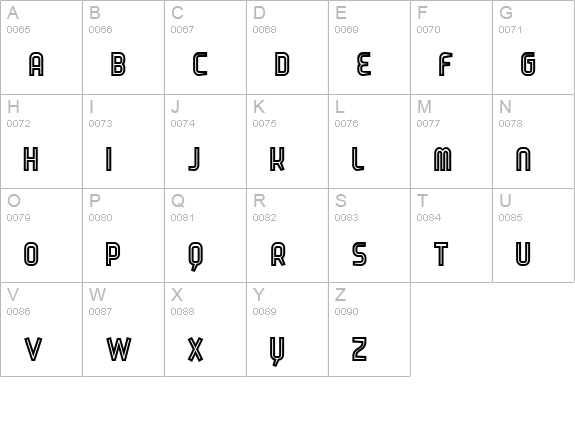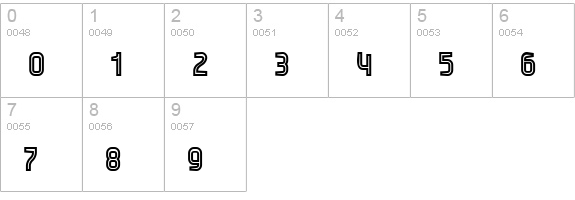
Danoutline Font Details
Danoutline font is a stunning typeface that exudes elegance and creativity. This unique and eye-catching font is perfect for adding a touch of sophistication to any design project. With its clean lines and bold strokes, Danoutline font is sure to make a lasting impression. What sets Danoutline font apart is its versatility. Whether you're designing a logo, creating a poster, or crafting a website, this font will effortlessly elevate your work to new heights. Its modern and contemporary look makes it ideal for a wide range of applications, from fashion and beauty to technology and finance. One of the best things about Danoutline font is that it is free. Yes, you read that right—this amazing font is freely available to download at FontsMarket.com. We believe that great design should be accessible to everyone, and that's why we're thrilled to offer Danoutline font at no cost. So whether you're a professional designer or a hobbyist, you can enjoy the benefits of this incredible font without breaking the bank. Downloading and installing Danoutline font is quick and easy. Simply visit FontsMarket.com, locate the font, and click the download button. Once downloaded, you can start using it in your design projects right away. Its user-friendly nature ensures that you'll have a seamless experience working with this font. So why wait? Take your design projects to the next level with Danoutline font. Its striking appearance, versatility, and the fact that it's free make it a must-have for any designer. Don't miss out on this opportunity to enhance your work and stand out from the crowd. Download Danoutline font today and let your creativity soar.